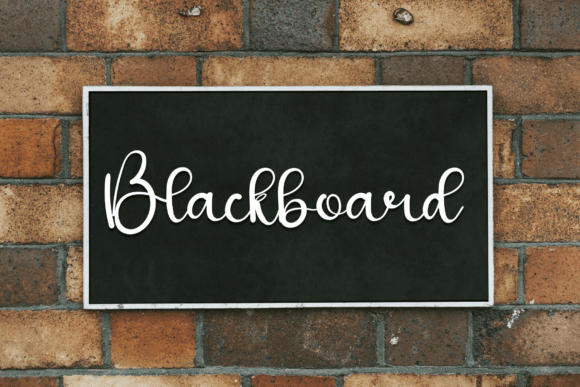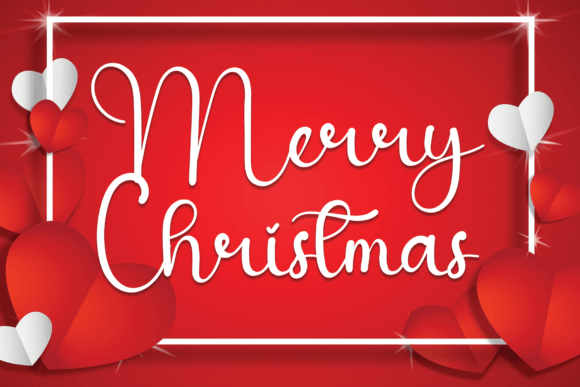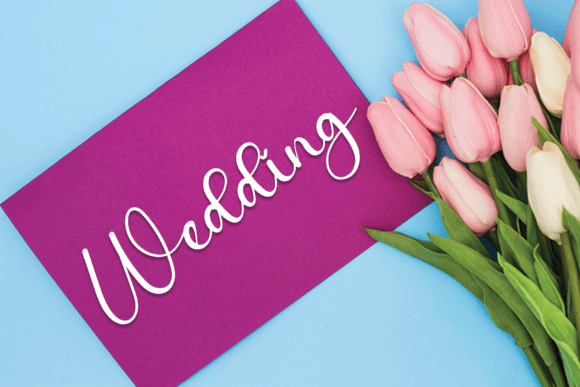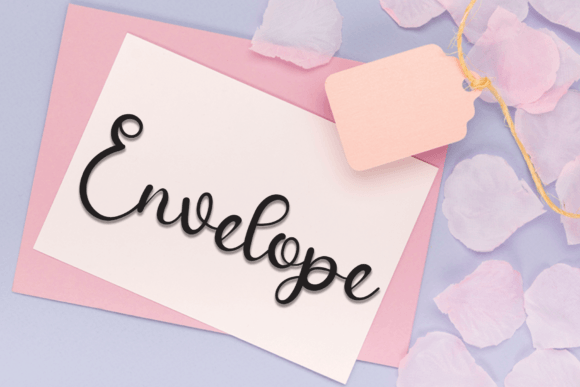
Shimpony Font
Add Character to Your Designs with Shimpony Font
Shimpony Font is a simple and cheerful handwritten typeface that brings warmth and personality to any creative project. Whether you’re designing something digital or physical, this font feels right at home. Its clean, friendly strokes offer just enough character without compromising readability.
Why Choose Shimpony Font?
If you’re looking for a handwritten style that’s approachable and highly versatile, Shimpony Font is a smart choice. It’s designed to look natural yet polished, making it perfect for a wide variety of uses. Whether you’re a designer working on a product label or a hobbyist crafting a greeting card, this font fits right in.
Common use cases include:
• Craft Projects – Perfect for scrapbooks, DIY labels, and handmade gifts.
• Digital Design – Use it for blog headers, website banners, or social media graphics.
• Presentations – Add a human touch to slide decks and visuals.
• Greeting Cards – Great for birthday cards, thank-you notes, or holiday wishes.
Thanks to its casual, handwritten style, it conveys friendliness and approachability in every use.
Design Features and Compatibility
Shimpony Font includes a full set of lowercase and uppercase characters, numerals, and standard punctuation. Its consistent spacing and slightly rounded strokes make it feel relaxed without being messy. Every letter is carefully crafted to deliver balance and harmony on the page.
Make Your Message Stand Out
In a world of clean sans-serif fonts and robotic typefaces, Shimpony Font adds that much-needed personality. Whether you’re branding your small business or just want to make your holiday cards pop, it adds a heartfelt touch.
Designers often find themselves coming back to Shimpony for its balance of character and simplicity. It’s versatile enough for casual branding yet elegant enough for personal projects.
Don’t let your message get lost in generic fonts. Shimpony helps your designs stand out in a warm, inviting way.